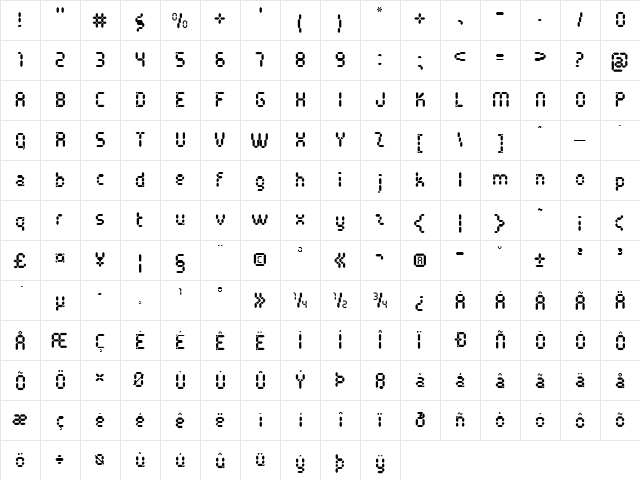
Pocket Calculator Regular
Design Context for Pocket Calculator Typeface
Pocket Calculator is a composed and adaptable typeface that performs quietly and consistently across a wide range of design contexts.